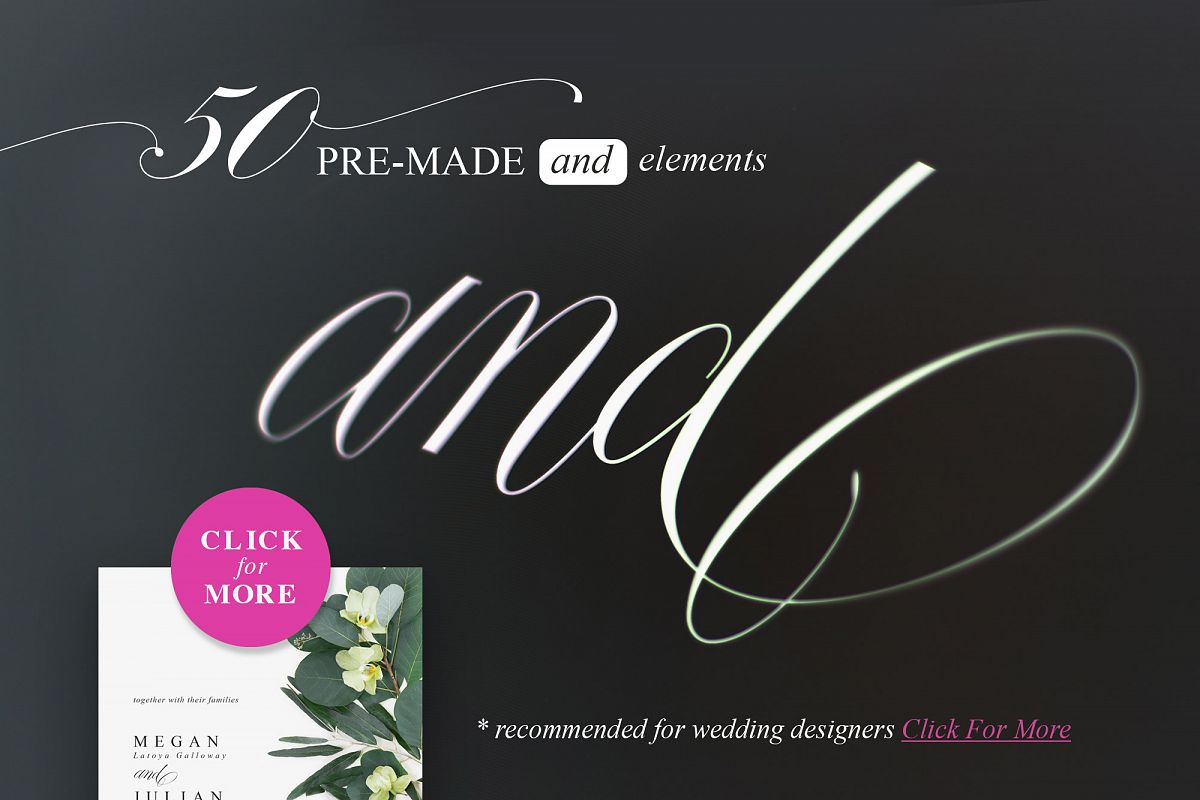
Fifty "AND" for your weddings
Premade-AND-Regular
How many times you were typing this magic "and" to connect two people in your wedding invitation? For sure you want to create this AND to be wonderful. Now it is possible with lovely pre-made fifty elements. Just install the font and choose any design. Fast and wonderful. I am sure this pack will will become your favorite.
RECOMMENDED FOR
• wedding invitations
• stationary designers
• magazine
• logo designs
• tattoo
• signs